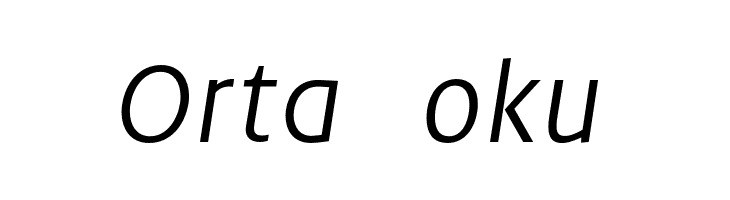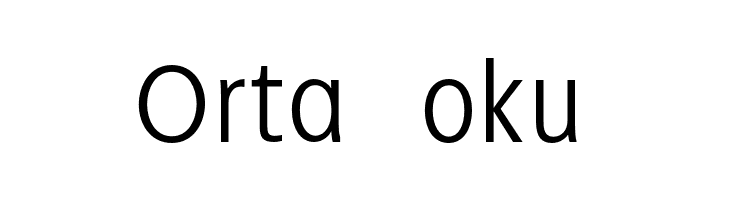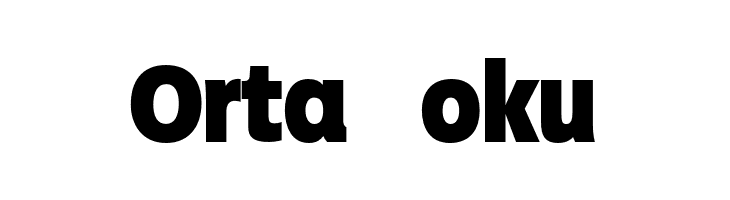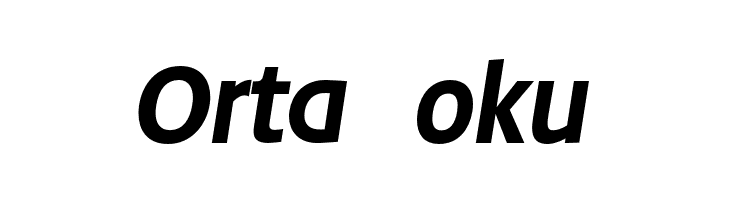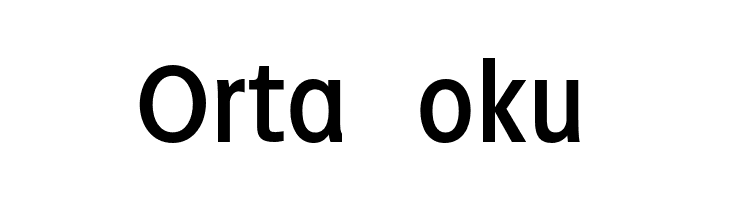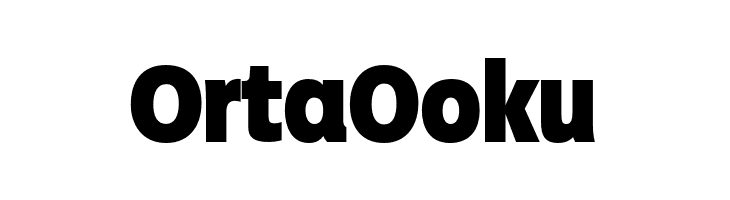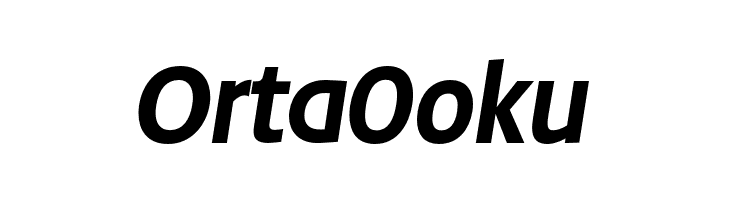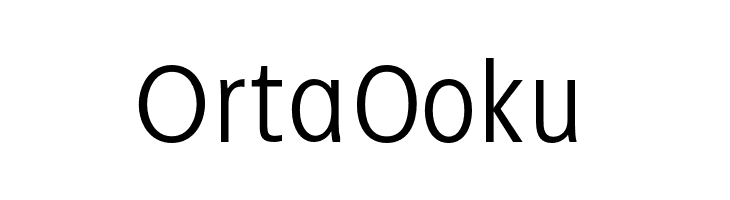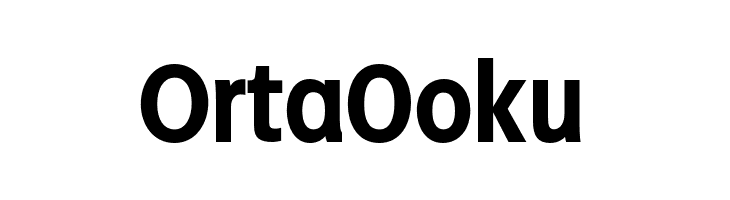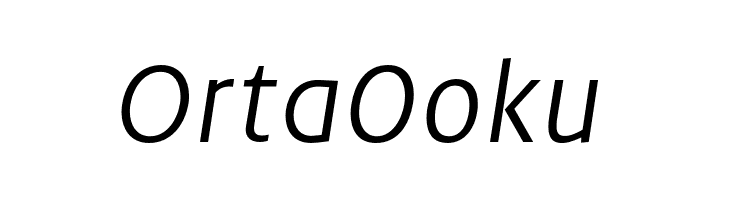
• JosefPro-Light
A clean, modern sans-serif font with a light weight and excellent readability.
• JosefPro-LightItalic
A modern, light, italic sans-serif font with clean lines and low contrast.
• JosefPro-LightItalicreduced
A sleek, modern, light italic font with balanced character spacing.
• JosefPro-Lightreduced
A clean, modern typeface with uniform stroke width and excellent readability.
• JosefPro-Regularreduced
• JosefProBold
A bold, modern sans-serif font with clean lines and a strong presence.
• JosefProBold-Black
A bold, modern font with thick, uniform strokes for strong visual impact.
• JosefProBold-Blackreduced
A bold, modern typeface with strong, uniform letterforms.
• JosefProBold-Italic
A bold, italicized typeface with a modern and dynamic style.
• JosefProBold-Italicreduced
Bold, italicized typeface with a modern and dynamic style.